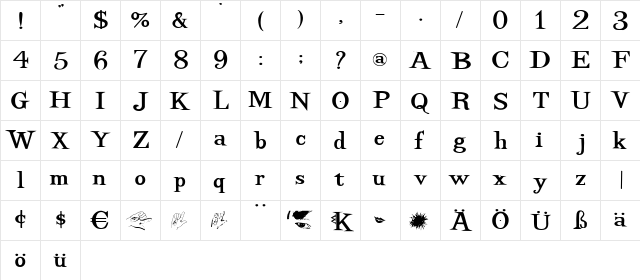
DancingSuperserif Regular
Design Context for DancingSuperserif Typeface
DancingSuperserif brings classic typographic sensibility to the table — its serifs and measured letterforms reflect centuries of print heritage.
Pro Tip: Set DancingSuperserif with slightly loose tracking in headlines to let each letterform's detail read clearly at display sizes.